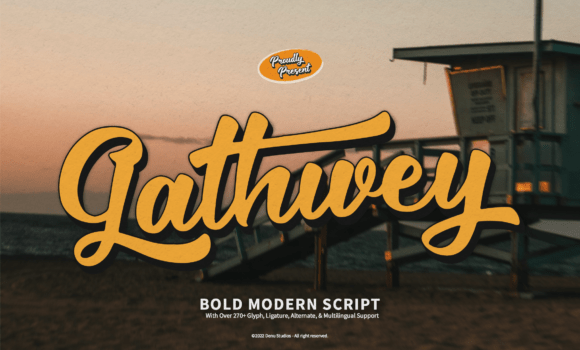
gathwey
Gathwey Font – Free Download Introduction to Gathwey Font Gathwey is a bold, energetic script font with a modern, hand-lettered feel. 📸 Preview Gallery 6 images 📌 Product Name Gathwey Font 👤 Author Denustudios 📂 Category Explore ⬇️ Download Gathwey